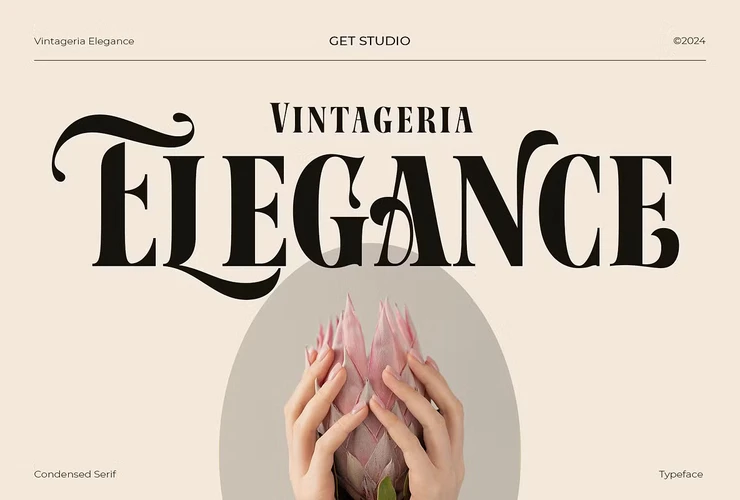
Discover Vintageria Elegance: A Modern Vintage Serif by Get Studio
Introducing Vintageria Elegance, a sophisticated all-caps serif font by Get Studio that seamlessly blends classic serif elegance with a contemporary twist. This versatile font is designed to enhance various design projects, offering a timeless yet modern aesthetic.
Key Features of Vintageria Elegance
Vintageria Elegance is crafted to stand out in any design project, thanks to its unique features:
All-Caps Serif Font: Combines the elegance of classic serif fonts with a modern touch, making it ideal for creating striking typographic expressions.
Alternate Characters: Includes a wide range of alternate characters, providing creative flexibility and allowing for unique and personalized designs.
Bold and Clean Lines: Features refined details and bold, clean lines that add sophistication and nostalgia to any design.
Ideal Uses for Vintageria Elegance
Vintageria Elegance is perfect for a variety of design projects, particularly those that require a touch of sophistication and a timeless aesthetic:
Branding: Create memorable and elegant brand identities that stand out.
Editorial Design: Enhance magazines, books, and other editorial content with a striking and refined font.
Print Materials: Design posters, flyers, and other print materials that capture attention with a blend of modern and vintage styles.
Why Choose Vintageria Elegance?
Vintageria Elegance offers a perfect combination of elegance and versatility, making it an excellent choice for designers seeking to create impactful and sophisticated designs. Its all-caps serif style, along with the variety of alternate characters, ensures that every project can have a unique and personalized look.